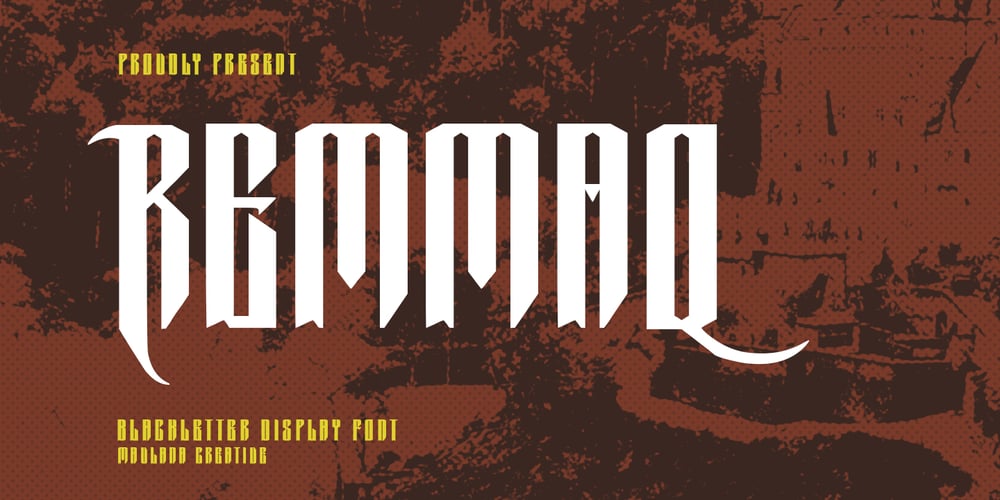
MC Remmaq Font Family was designed by Gilang Maulana and published by Maulana Creative. MC Remmaq contains 1 styles and family package options. Introducing Remmaq Blackletter Display Font.Remmaq Blackletter Font is a handmade Modern Victorian handlettering, which is combining modern and classic typography with some awesome alternates. Yes we back to early 1800s, bring classic touch on this decade.